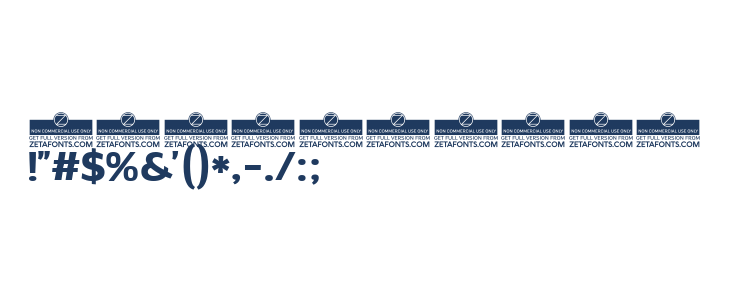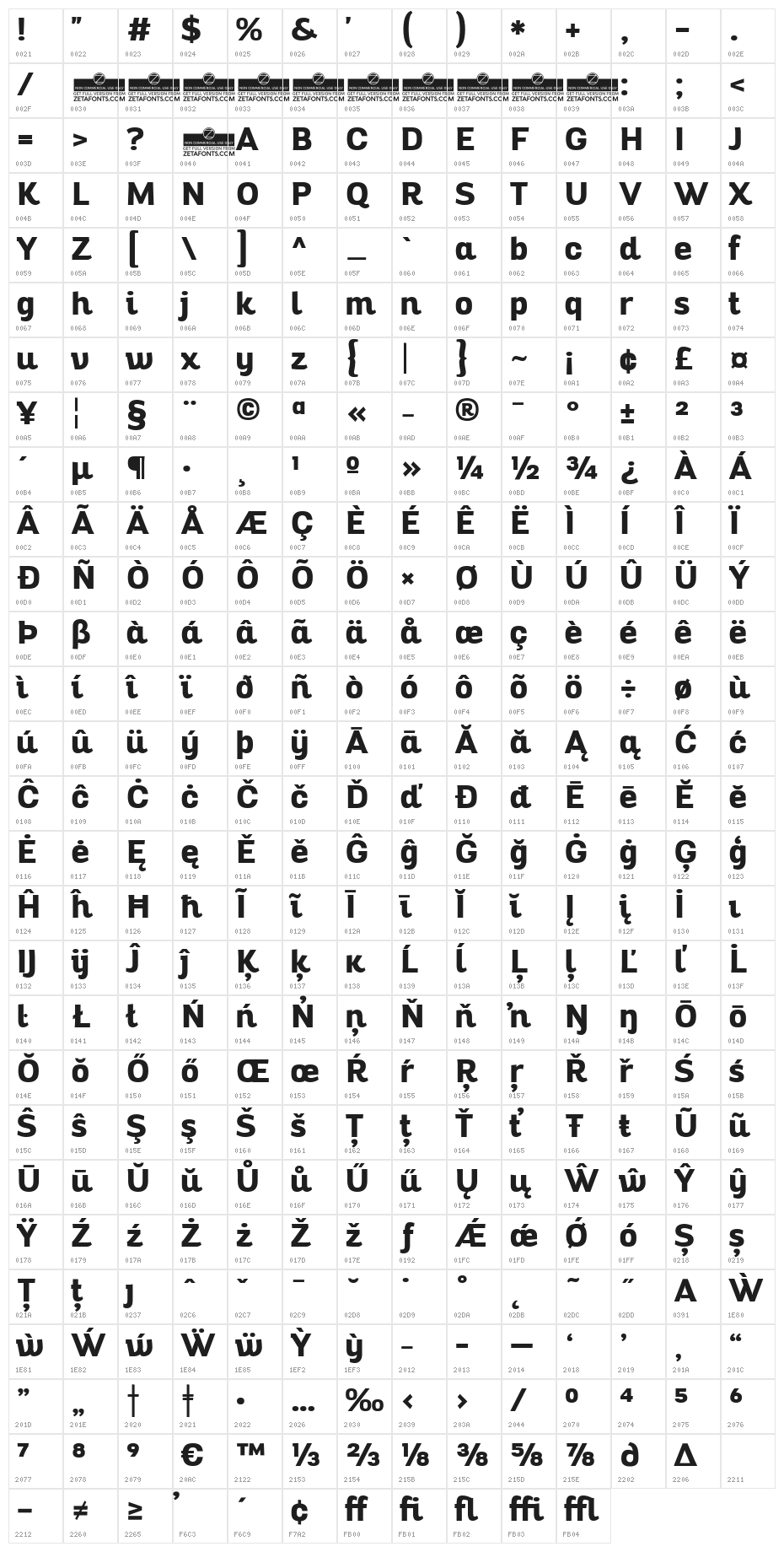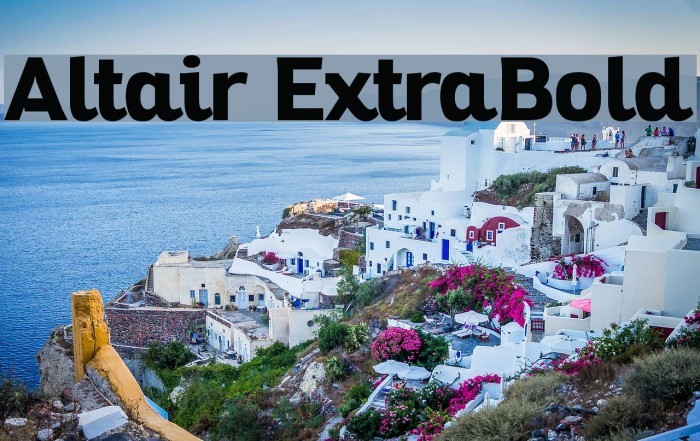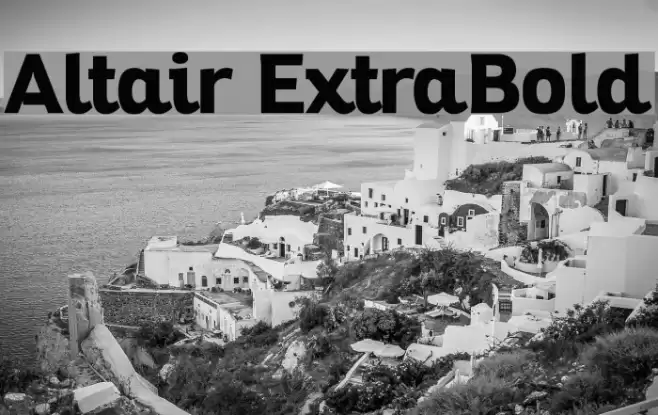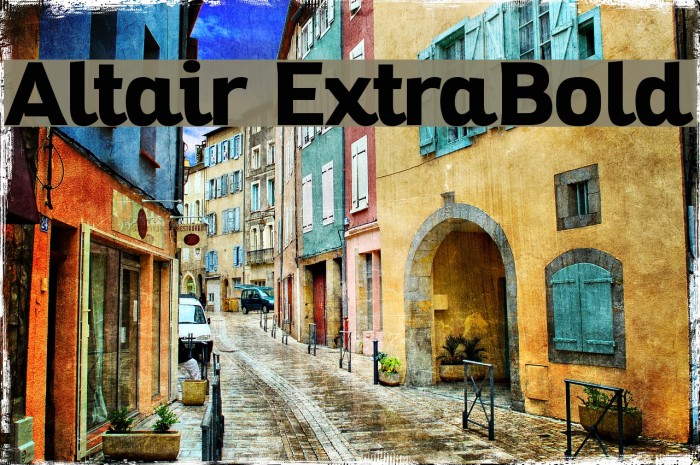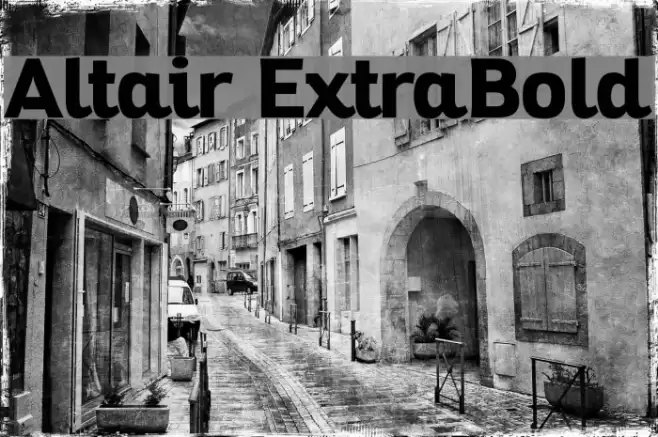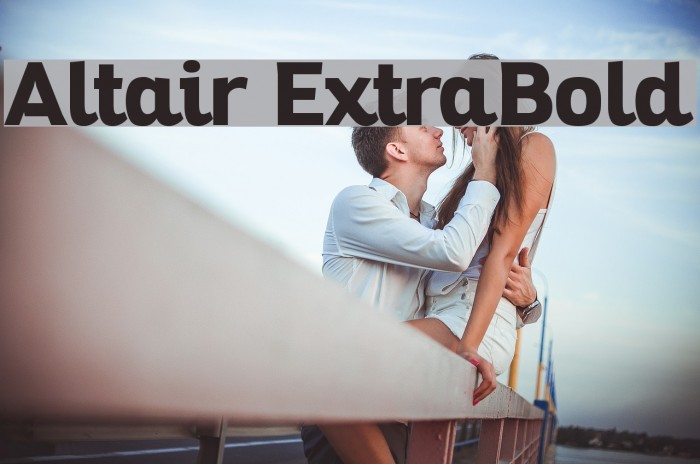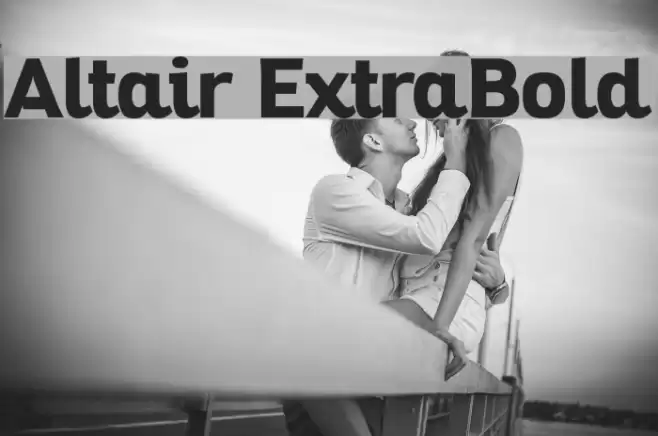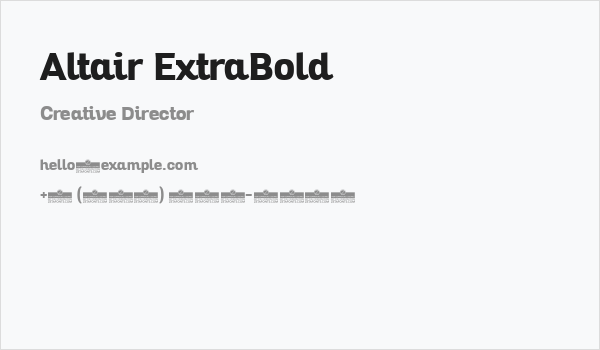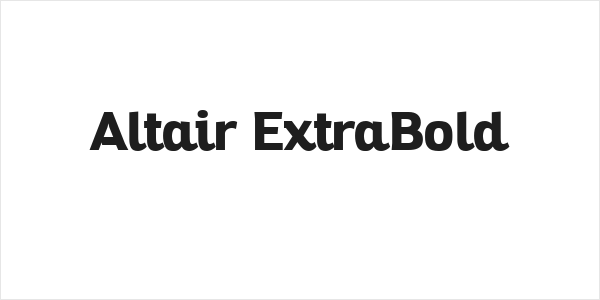
Altair ExtraBold Font
Altair ExtraBold Description
This font features a bold and robust design with strong, clean lines and a modern aesthetic. The uppercase letters are uniform in height and width, providing a sense of stability and balance. The lowercase letters maintain a consistent style, with rounded edges that add a touch of softness to the overall appearance. The numerals are clear and easy to read, making them suitable for various applications. Special characters are well-defined, ensuring versatility in usage. The font's extra-bold weight makes it ideal for making a strong visual impact, while its modern style ensures it remains relevant in contemporary design projects.